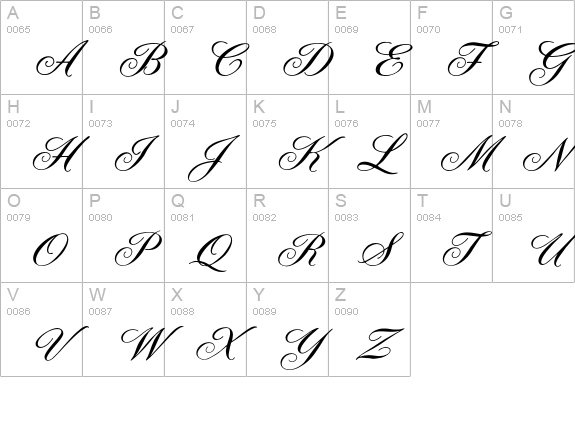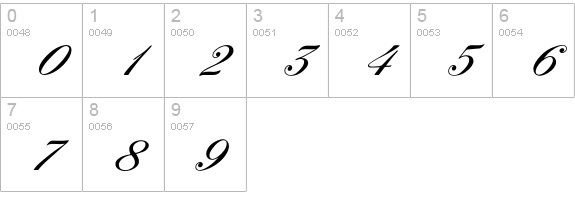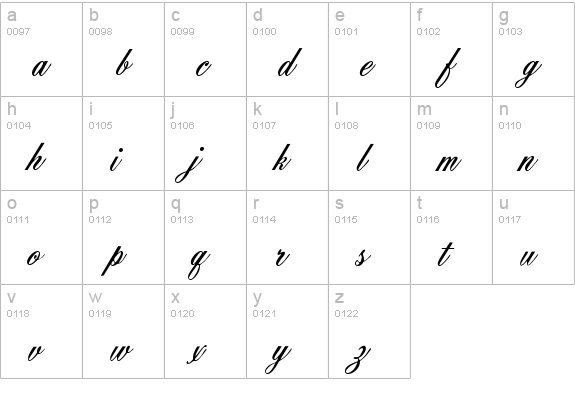
Yorkshire Font Details
Yorkshire font is a versatile and elegant typeface that exudes a sense of sophistication and charm. With its classic yet modern design, Yorkshire font is perfect for a wide range of design projects, from branding and logo design to invitations and packaging. This font features clean lines and a timeless aesthetic that will elevate any design. Its sleek and stylish appearance makes it ideal for creating professional and polished graphics. Whether you are working on a print project or a digital design, Yorkshire font will bring a touch of class to your work. Best of all, Yorkshire font is available for free download at FontsMarket.com. This means you can start using this beautiful typeface in your projects right away, without any cost. Don't miss out on the opportunity to add Yorkshire font to your font library and enhance your designs with its elegant style.